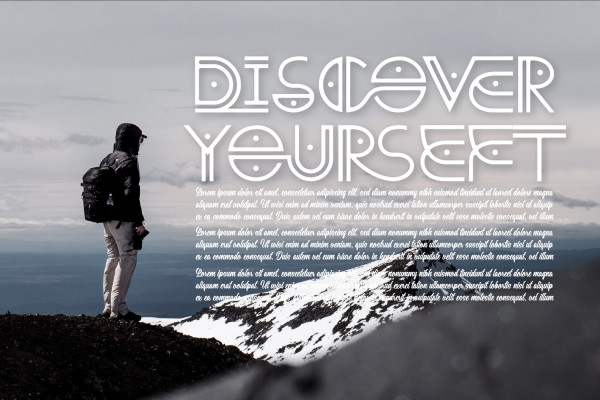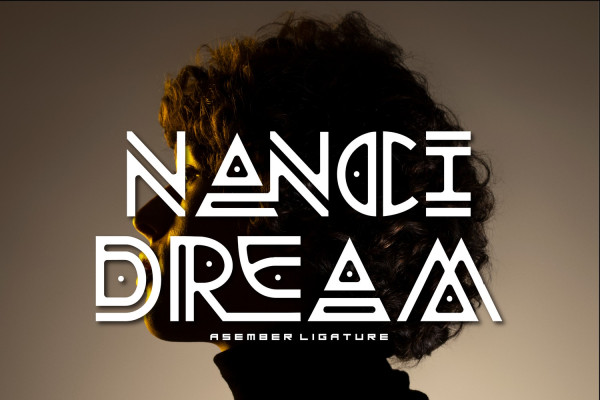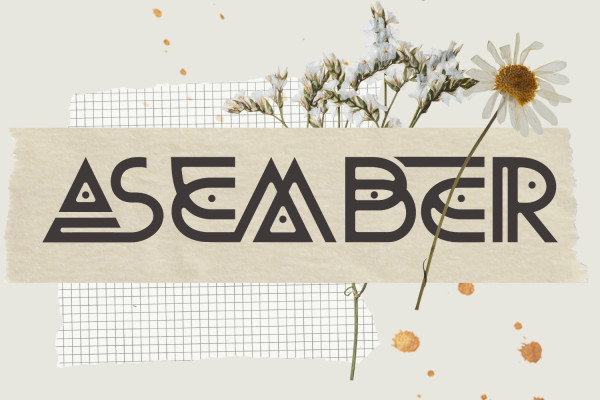
Asember Ligature Font
Asember Ligature Font is a modern, elegant and futuristic look font, a font inspired by the visual of technology that we can find from logo, sci-fi movies, games, and the present gadgets. You can use this font for any purpose, especially for creating future designs. This font is great for logo designs, poster, magazine, headline and many other designs, it is a very sophisticated font so that will make your designs stand out!
Asember Ligature Font was built with OpenType features and includes 100 ligatures, alternate, numbers, punctuation, and it also supports other languages.
AC AD AL AN AR AS AT AU AV BE CA CE CH CO CT DE DI EA EC ED EE EL EM EN EP ER ES ET FE FO FR GE HA HE HI HO IE IC IL IN IO IR IS IT JU KE LA LE LI LL LO LY MA ME MI NC ND NE NG NO NT NS OC OF OM ON OO OP OR OT OU OW PA PR RA RD RE RI RO RS RT SE SH SI SO SS ST TA TE TH TI TO TR TT UM UN UR VE WI WO